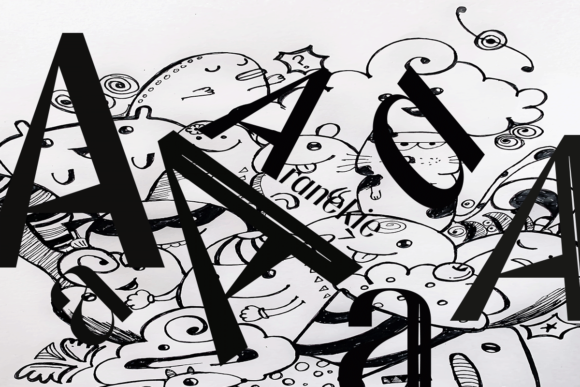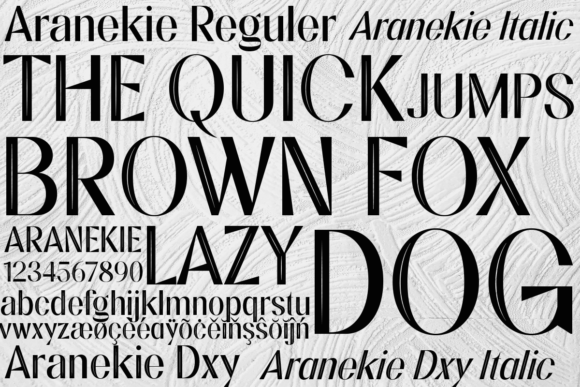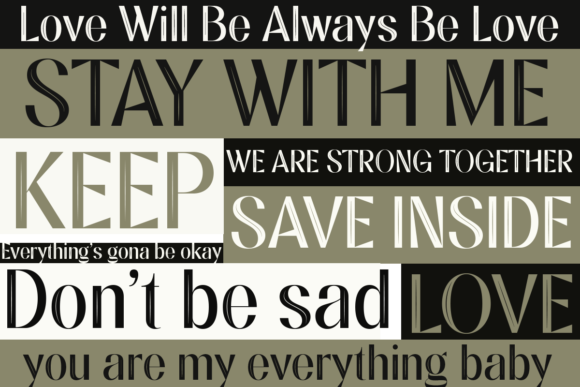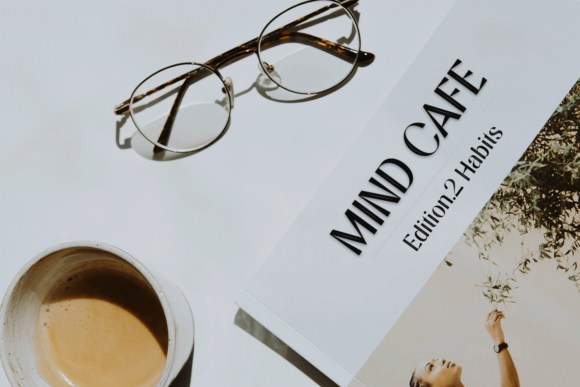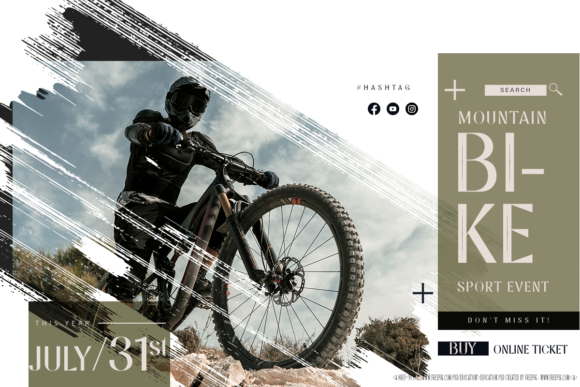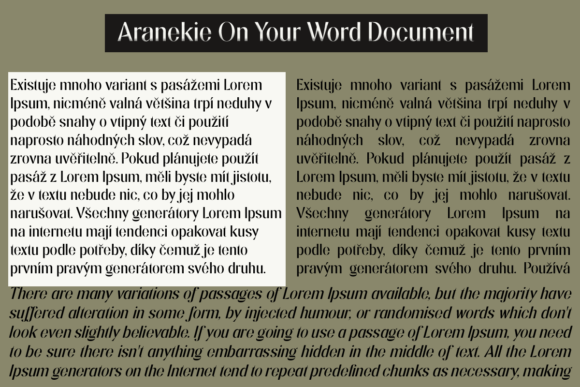
Introducing Aranekie: A Modern Sans Serif Font
Aranekie is a modern sans serif font that draws inspiration from bold and thin serif fonts. With its clean lines and versatile style, it’s no wonder Aranekie has become a go-to font for designers, crafters, and creative hobbyists alike. This font comes in 4 styles, making it perfect for a wide range of projects, from documents and logos to pamphlets and book covers.
My Honest Review of Aranekie
- ✨ Versatility: Aranekie comes in 4 styles, making it easy to mix and match to create a unique look.
- ✅ Legibility: The font is clear and easy to read, even at small sizes.
- 💡 Innovative Design: The sans serif design, inspired by serif fonts, gives Aranekie a fresh and modern feel.
While Aranekie is an excellent font, there are a few things to keep in mind:
- 🤔 Limited Language Support: Aranekie may not support all languages, so be sure to check the character set before using it for a multilingual project.
- ⚠️ Not Suitable for Body Text: While Aranekie is great for headings and titles, it may not be the best choice for body text due to its modern, sans serif design.
One of the standout features of Aranekie is its support for OpenType features and glyphs. These features allow you to customize your text with stylistic alternates, ligatures, and more. To access these features, you’ll need to use a design program that supports OpenType, such as Adobe Photoshop or Illustrator.
The Story Behind Aranekie
Aranekie was designed with the goal of creating a modern sans serif font that would bring a fresh perspective to the world of typography. The designer, inspired by the bold and thin serif fonts of the past, set out to create a font that would be both elegant and versatile. The result is a font that’s perfect for designers, crafters, and creative hobbyists looking for a unique and stylish way to express themselves.
Q: What is Aranekie font?
A: Aranekie is a modern sans serif font inspired by bold and thin serif fonts. It comes in 4 styles and is perfect for a wide range of projects.